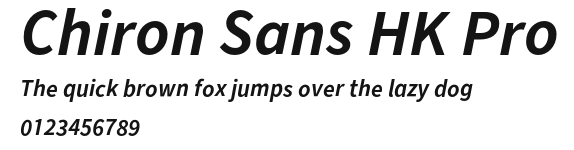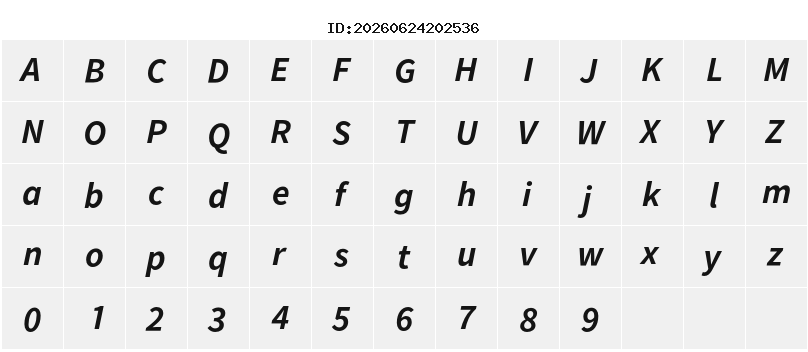
Chiron Sans HK Pro Preview
• Font Name: Chiron Sans HK Pro
• Font ID: 1.009;ADBO;ChironSansHKPro-BoldIt;ADOBE
• Full Font Name: Chiron Sans HK Pro Bold Italic
• Version: Version 1.009;hotconv 1.0.118;makeotfexe 2.5.65603
• PostScript Name: ChironSansHKPro-BoldIt
• Character Count: 47007
• Designer: Ryoko NISHIZUKA 西塚涼子 (kana, bopomofo & ideographs); Paul D. Hunt (Latin, Greek & Cyrillic); Sandoll Communications 산돌커뮤니케이션, Soo-young JANG 장수영 & Joo-yeon KANG 강주연 (hangul elements, letters & syllables); Tamcy (Chinese glyphs adjustments & additions)
• Manufacturer: Adobe
• Description: Dr. Ken Lunde (project architect, glyph set definition & overall production); Masataka HATTORI 服部正貴 (production & ideograph elements); based on Source Han Sans v2.004
About Chiron Sans HK Pro.otf
Chiron Sans HK Pro.otf is a modern, elegant sans-serif font designed for ultimate readability and visual harmony. Perfect for branding, headlines, web design, and print materials.